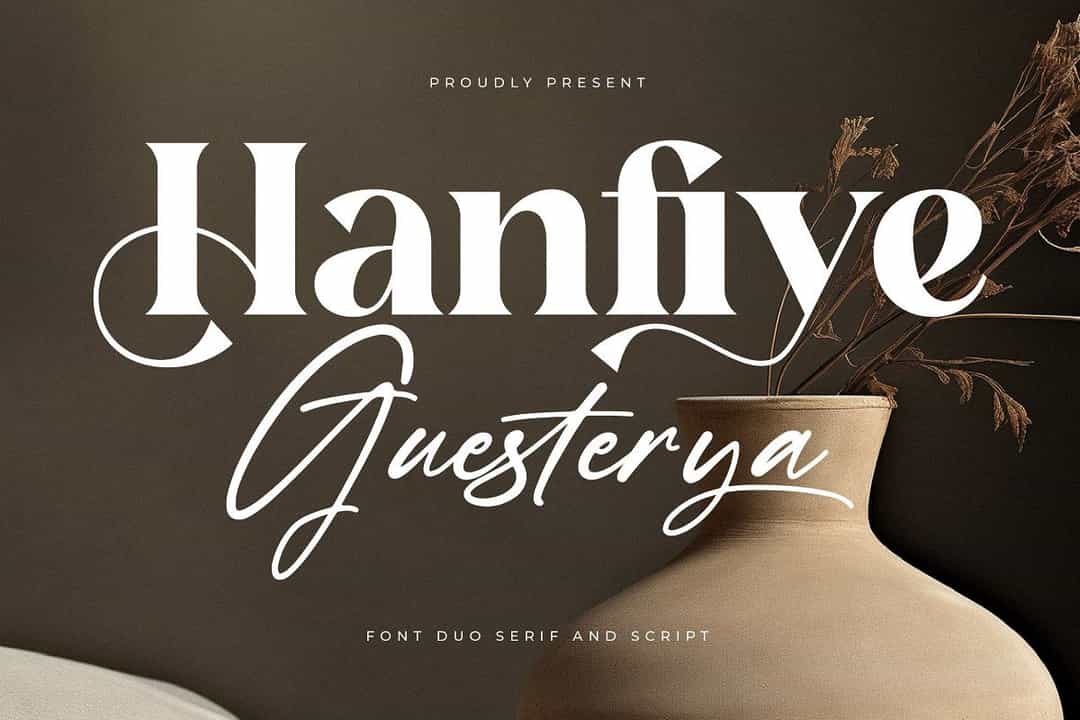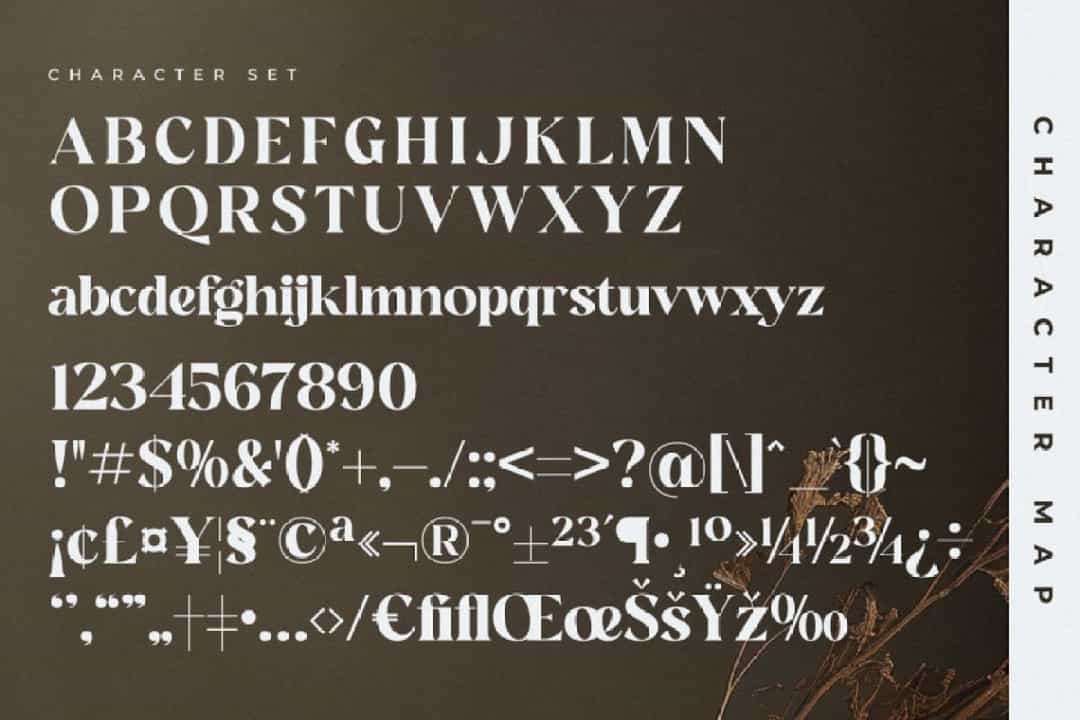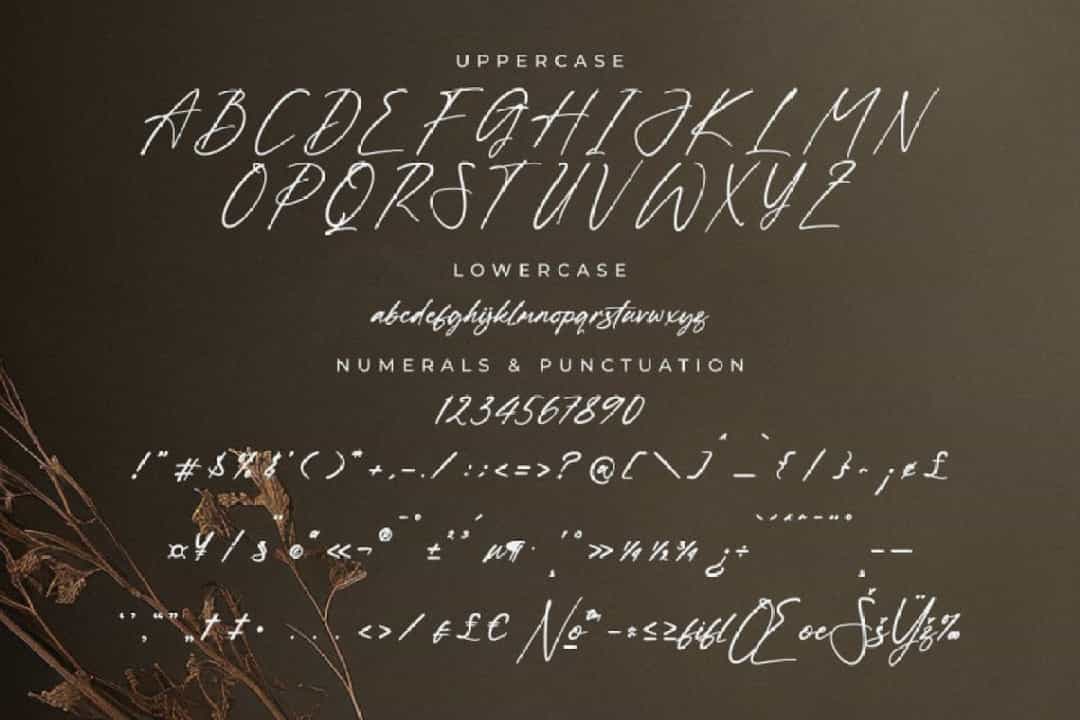
Discover Hanfiye Guesterya Font, part of the Handwritten Serif collection—a versatile and unique font perfect for adding a personal touch to your projects. Download it for free and enjoy crafting designs with style, from invitations to social media posts. This font is available exclusively for personal use, giving you the freedom to create without limits. Unlock your creativity with Hanfiye Guesterya Font today!
Hanfiye Guesterya Font Duo is a script and serif font with distinctive style and contemporary appearance, designed specifically to meet the demands of modern logo design, movie or book title design, fashion brand apparel design, magazine letters and quotes – among many other uses! PUA encoded, this font offers easy access to its incredible symbols and ligatures in no time at all!